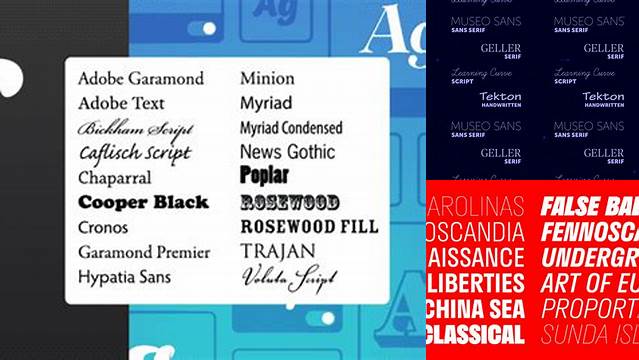
Best Adobe Fonts: Top Reddit Picks For Designers
Hey guys! Ever scrolled through Reddit and seen some seriously stunning typography, only to wonder, βWhat font is that?!β Well, you're not alone! Finding the perfect font can be a game-changer for any design project, whether it's a sleek website, a captivating poster, or even a killer resume. And when it comes to quality fonts, Adobe Fonts is a goldmine. But with thousands of options, where do you even start? That's where the Reddit community comes in! Reddit is a treasure trove of design enthusiasts and font aficionados who are always sharing their favorite finds and hidden gems. So, we've scoured the Reddit threads, dug through the discussions, and compiled a list of the best Adobe Fonts, according to Reddit users themselves. Get ready to level up your typography game!
Why Adobe Fonts Are a Designer's Best Friend
Before we dive into the Reddit recommendations, let's quickly chat about why Adobe Fonts are so popular in the first place. If you're already an Adobe Creative Cloud user (like many designers are), you've got access to a vast library of fonts included in your subscription. That's right, no more hunting for fonts across the web and worrying about licensing issues! Adobe Fonts are high-quality, professionally designed fonts that are super easy to use in your projects. They seamlessly integrate with Adobe apps like Photoshop, Illustrator, and InDesign, making your workflow smooth and efficient. Plus, Adobe Fonts offers a wide variety of styles, from classic serif fonts to modern sans-serifs, and everything in between. Whether you're going for a timeless, elegant look or a bold, contemporary vibe, you're sure to find the perfect font in the Adobe Fonts library. The convenience of having thousands of fonts at your fingertips, all covered by your existing subscription, is a huge win for designers. It saves time, money, and the headache of managing multiple font licenses. And let's be honest, who doesn't love exploring a massive font library and discovering new favorites? The sheer variety of options allows for endless creativity and experimentation. You can try out different font pairings, play with weights and styles, and truly customize your designs to achieve the exact look and feel you're aiming for. Adobe Fonts also makes it easy to keep your fonts organized and synced across all your devices. This means you can start a project on your desktop, continue working on your laptop, and everything will be perfectly in sync. No more missing fonts or compatibility issues! Plus, Adobe Fonts are constantly being updated and expanded, so you'll always have access to the latest and greatest typefaces. This means you can stay ahead of the curve and keep your designs fresh and modern. So, whether you're a seasoned designer or just starting out, Adobe Fonts is an invaluable resource that can elevate your work to the next level. Now, let's get to those Reddit-approved font recommendations!
Reddit's Favorite Adobe Fonts: Top Picks for Every Project
Okay, guys, letβs get into the good stuff β the fonts that Reddit users are actually raving about! These are the typefaces that keep popping up in discussions, the ones that designers consistently recommend, and the fonts that are guaranteed to make your projects shine. We've broken them down into categories to make it easier to find the perfect font for your specific needs.
Classic & Timeless Serif Fonts
Serif fonts are those with the little βfeetβ or strokes at the ends of the letters. They often convey a sense of tradition, elegance, and authority, making them ideal for formal designs, editorial layouts, and projects that need a touch of sophistication. When it comes to classic serif fonts, Reddit users have some clear favorites. One standout is Adobe Garamond. This font is a true classic, known for its readability and timeless appeal. It's perfect for body text in books and magazines, as well as for elegant websites and branding materials. The subtle variations in stroke weight and the graceful curves of the letters give it a refined and sophisticated look. Another popular choice is Minion Pro. This font is a versatile workhorse that works well in a variety of applications. It's clean and legible, making it a great option for both print and digital projects. Minion Pro has a slightly more modern feel than Adobe Garamond, but it still maintains a classic serif sensibility. It's a solid choice for anything from brochures and reports to websites and presentations. For a font with a bit more character, Reddit users often recommend Warnock Pro. This typeface has a calligraphic quality, with elegant strokes and a slightly condensed design. It's a great option for headlines and subheadings, as well as for adding a touch of personality to your designs. Warnock Pro is particularly well-suited for projects that need a sense of warmth and sophistication. These classic serif fonts are tried-and-true choices that will never go out of style. They're perfect for projects that require a sense of tradition, elegance, and authority. Whether you're designing a book, a website, or a brand identity, these fonts will help you create a timeless and sophisticated look. Remember, the key to using serif fonts effectively is to pair them with a clean and legible sans-serif font for body text. This creates a visual contrast that enhances readability and adds visual interest to your designs. So, go ahead and explore these classic serif fonts β you're sure to find the perfect one for your next project!
Modern & Minimalist Sans-Serif Fonts
Sans-serif fonts, on the other hand, lack those little βfeetβ and tend to have a cleaner, more modern appearance. They're often favored for digital designs, branding, and projects that need a contemporary feel. Reddit's top picks in this category include some seriously stylish options. Avenir Next is a perennial favorite among Reddit designers. This font is known for its clean lines, geometric shapes, and exceptional readability. It's incredibly versatile and works well in a wide range of applications, from websites and apps to brochures and posters. Avenir Next has a timeless quality that makes it a reliable choice for any project. Another popular sans-serif font on Reddit is Proxima Nova. This font is a workhorse that's widely used across the web. It's clean, modern, and highly legible, making it a great option for body text, headlines, and user interfaces. Proxima Nova comes in a variety of weights and styles, giving you plenty of options to choose from. For a font with a bit more personality, consider Roboto. This sans-serif typeface was designed by Google and is used extensively in Android and other Google products. Roboto has a friendly and approachable feel, with slightly rounded edges and a clean, modern design. It's a great option for projects that need a sense of warmth and accessibility. These modern sans-serif fonts are perfect for creating clean, contemporary designs. They're versatile, legible, and work well in a variety of applications. Whether you're designing a website, an app, or a brand identity, these fonts will help you achieve a modern and minimalist look. When using sans-serif fonts, it's important to pay attention to spacing and kerning. Sans-serif fonts can sometimes appear a bit too tight or crowded, so make sure to adjust the spacing between letters and lines to ensure optimal readability. Also, consider pairing a bold sans-serif font with a lighter weight for a visually appealing contrast. This can help you create a more dynamic and engaging design. So, go ahead and explore these modern sans-serif fonts β you're sure to find the perfect one to give your projects a contemporary edge!
Unique & Display Fonts
Sometimes, you need a font that really stands out and makes a statement. That's where display fonts come in! These fonts are designed to be eye-catching and attention-grabbing, making them perfect for headlines, logos, and other prominent design elements. Reddit users have discovered some seriously cool and unique display fonts in the Adobe Fonts library. One standout is Playfair Display. This font is a beautiful serif typeface with a high contrast between thick and thin strokes. It's elegant, sophisticated, and perfect for headlines and titles. Playfair Display has a vintage-inspired feel, but it also has a modern edge that makes it a versatile choice for a variety of projects. Another popular display font on Reddit is Oswald. This sans-serif typeface has a condensed design and a bold, impactful presence. It's perfect for headlines, posters, and other large-format designs. Oswald is a great choice for projects that need a sense of strength and authority. For a font with a more whimsical and playful feel, consider Abril Fatface. This serif typeface has a bold, rounded design that's sure to grab attention. It's perfect for headlines, logos, and other design elements that need a touch of personality. Abril Fatface is a great choice for projects that want to convey a sense of fun and energy. These unique display fonts are perfect for adding a touch of personality and flair to your designs. They're great for headlines, logos, and other design elements that need to stand out. However, it's important to use display fonts sparingly, as they can be overwhelming if used too much. Pair them with a clean and legible body font to create a balanced and visually appealing design. Also, consider the overall tone and style of your project when choosing a display font. Make sure the font you choose complements the message you're trying to convey. So, go ahead and explore these unique display fonts β you're sure to find the perfect one to make your designs truly stand out!
Font Pairing Tips: Creating Visual Harmony
Choosing the right fonts is only half the battle. Pairing them effectively is what truly elevates your design. Reddit users often share their favorite font pairings, and we've gathered some of the most popular tips. A classic approach is to pair a serif font with a sans-serif font. This creates a visual contrast that's pleasing to the eye and enhances readability. For example, you could pair Adobe Garamond (a classic serif) with Avenir Next (a modern sans-serif). This combination creates a timeless and sophisticated look. Another popular tip is to use different weights and styles within the same font family. For example, you could use a bold weight of Proxima Nova for headlines and a regular weight for body text. This creates visual hierarchy and adds interest to your design without introducing too many different fonts. When pairing fonts, it's important to consider the overall tone and style of your project. If you're designing something formal and elegant, you'll want to choose fonts that reflect that aesthetic. If you're designing something playful and fun, you can choose fonts that are more whimsical and expressive. It's also important to avoid using too many fonts in a single design. A good rule of thumb is to stick to two or three fonts at most. Using too many fonts can make your design look cluttered and confusing. Finally, don't be afraid to experiment! The best way to find the perfect font pairings is to try different combinations and see what works best for your project. There are also plenty of online resources and tools that can help you with font pairing. These tools can suggest font combinations based on your project's style and goals. So, have fun exploring the world of font pairing and discover the combinations that truly resonate with you!
Beyond the Basics: Reddit's Hidden Font Gems
While the fonts we've discussed so far are widely popular and well-known, Reddit users also love to share their discoveries of hidden gems within the Adobe Fonts library. These are the fonts that might not be as famous, but they're just as beautiful and versatile. One such gem is Source Sans Pro. This sans-serif typeface was designed by Paul D. Hunt at Adobe and is open-source, meaning it's free to use in your projects. Source Sans Pro is clean, legible, and works well in a variety of applications. It's a great option for body text, as well as for headlines and subheadings. Another hidden gem is Merriweather. This serif typeface was designed specifically for reading on screens. It has a slightly condensed design and a robust x-height, making it highly legible in digital environments. Merriweather is a great option for websites, ebooks, and other digital publications. For a font with a bit more personality, consider Zilla Slab. This slab-serif typeface has a bold, impactful presence and a slightly quirky design. It's perfect for headlines, logos, and other design elements that need to stand out. Zilla Slab is a great choice for projects that want to convey a sense of confidence and creativity. These hidden gems are just a few examples of the many beautiful and versatile fonts that can be found in the Adobe Fonts library. Reddit users are constantly discovering new favorites, so it's worth exploring the library yourself to see what you can find. Don't be afraid to stray from the popular fonts and try something new. You might just discover your next go-to typeface! Remember, the best way to find hidden gems is to experiment and explore. Try different fonts in your projects and see how they look and feel. You might be surprised at what you discover! So, go ahead and dive into the Adobe Fonts library β you're sure to find some hidden treasures.
Level Up Your Design Today!
So, there you have it, guys! Reddit's top picks for the best Adobe Fonts. From classic serifs to modern sans-serifs and unique display faces, there's a font for every project and every style. By exploring these recommendations and experimenting with different font pairings, you can elevate your designs and create truly captivating visuals. Remember, typography is a powerful tool that can make or break a design. Choosing the right fonts can help you communicate your message effectively, create a strong brand identity, and engage your audience. So, take the time to explore the Adobe Fonts library and discover the fonts that resonate with you. And don't forget to check out Reddit for more font inspiration and recommendations. The design community is always sharing new discoveries and insights, so you're sure to find plenty of valuable information. With the right fonts in your toolkit, you can create designs that are not only beautiful but also effective and impactful. So, go ahead and level up your design game today!